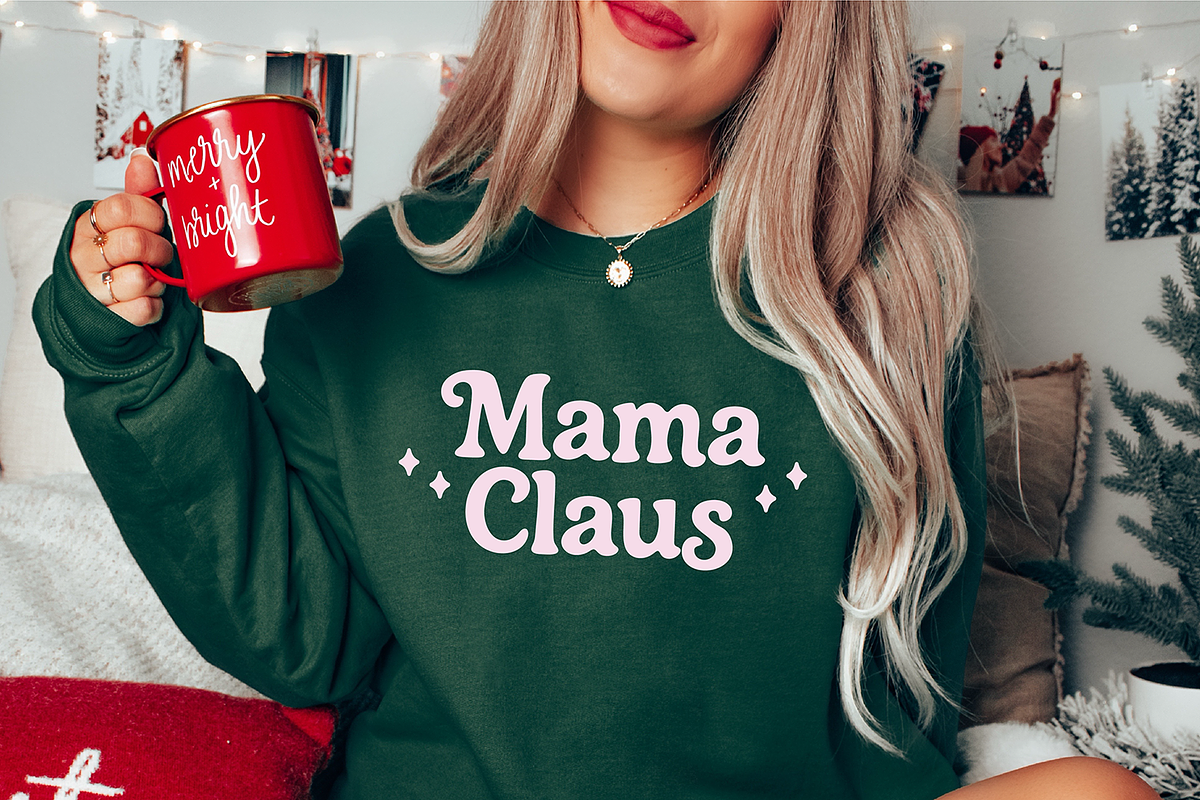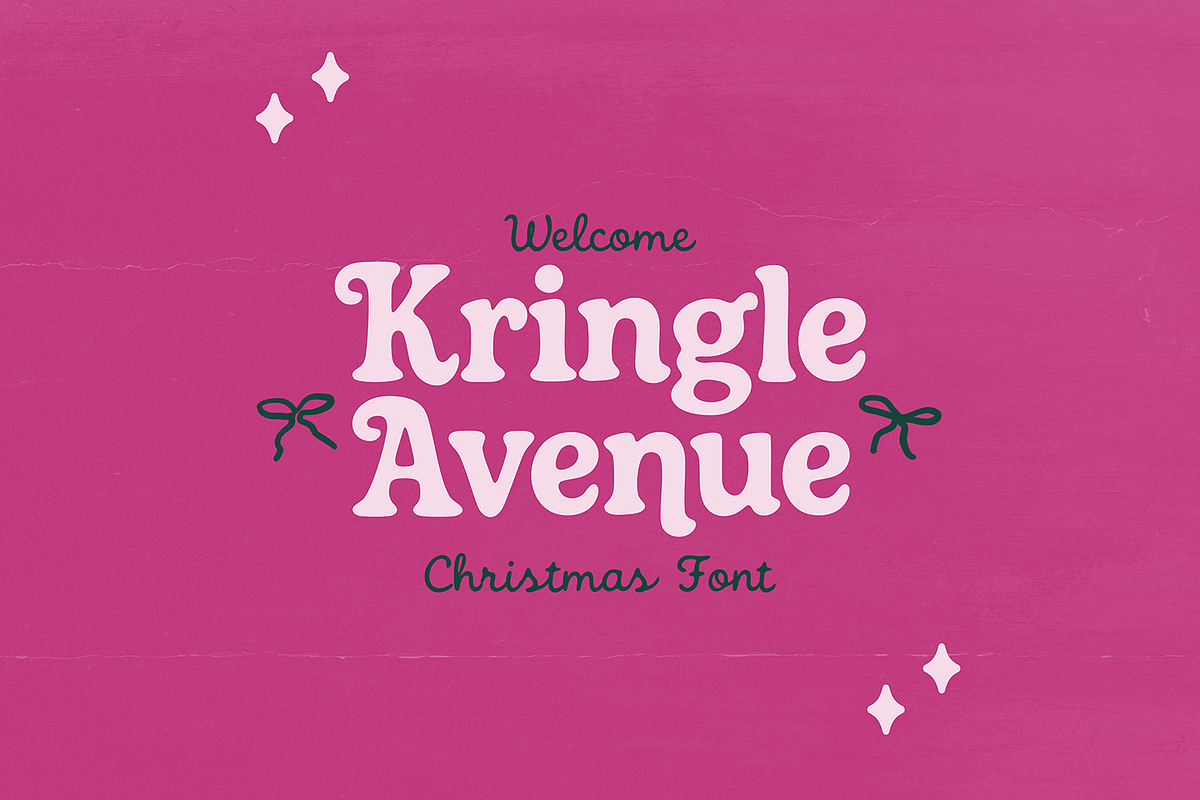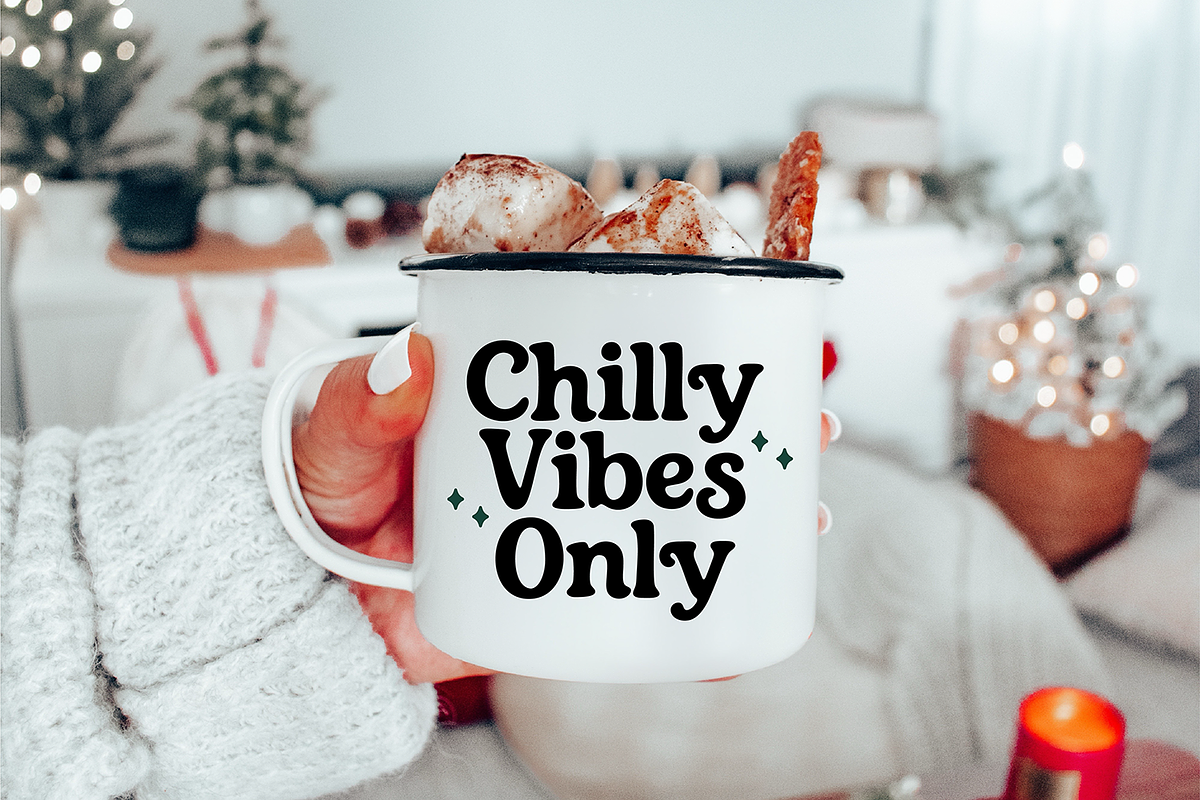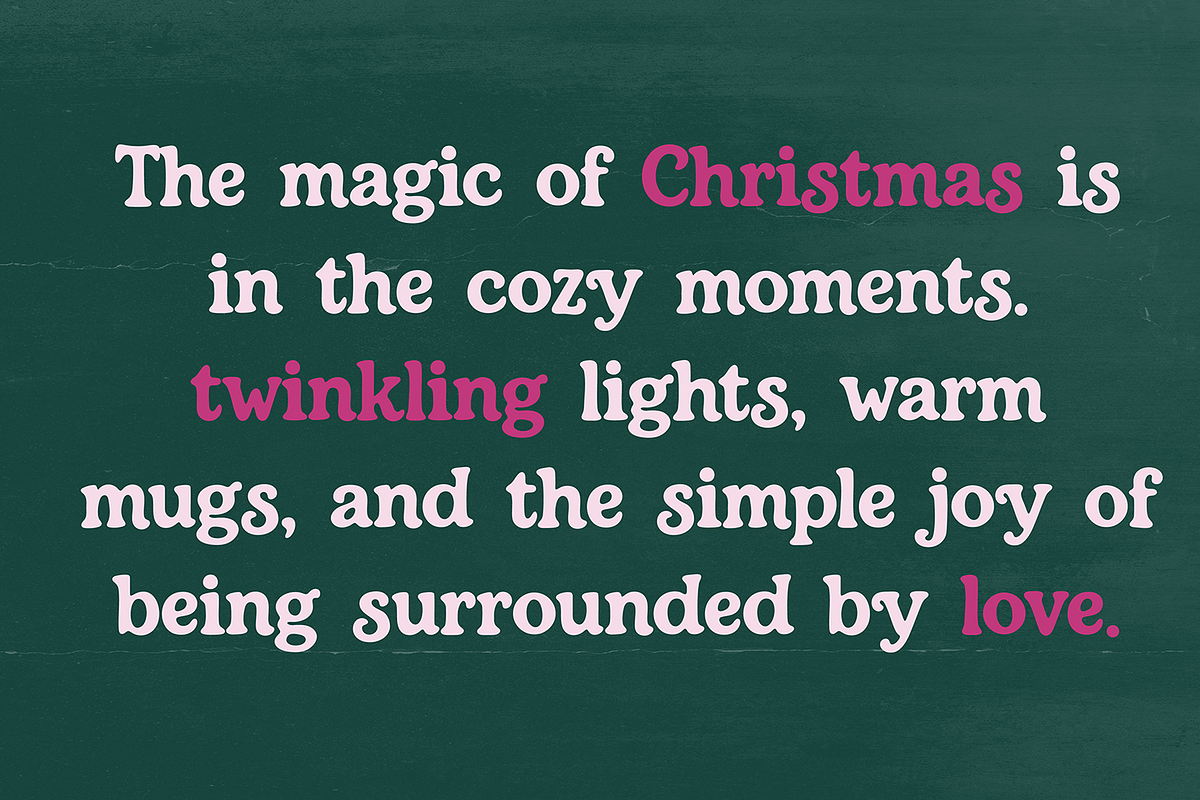
Kringle Avenue Serif Christmas Font
"Kringle Avenue" a Whimsical Bold Elf Christmas font
Kringle Avenue is perfect for your holiday projects. Use it for Christmas cards, winter crafts for decor and more! This font includes upper and lowercase characters, numbers, and basic punctuation. Find the stars by using the keys.